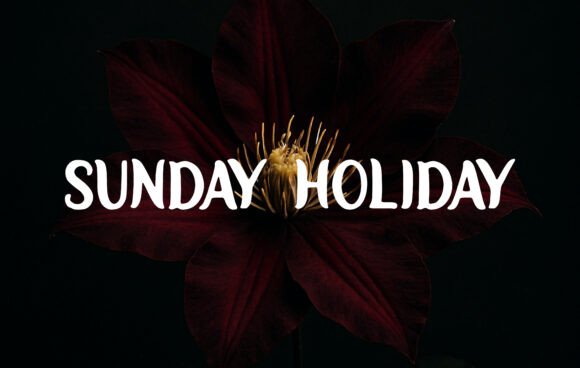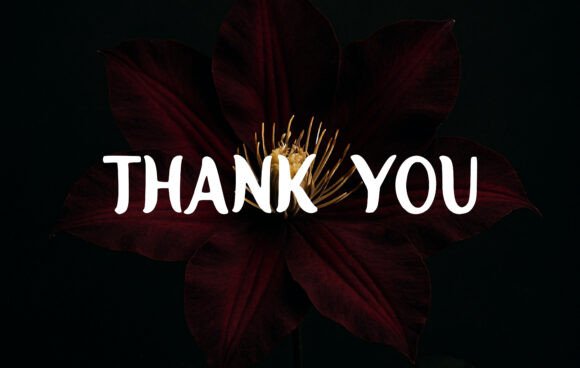
Golf Font: Elevate Your Designs with a Confident yet Approachable Style
Are you looking for a font that exudes confidence and approachability? Look no further than the Golf Font. This clean, rounded display font is perfect for headlines, branding, and sports-themed designs. With its unique blend of strength and readability, Golf Font is sure to make a maximum impact on your audience.
What is Golf Font?
Golf Font is a modern display font that is designed to convey a sense of confidence and approachability. Its clean lines and rounded edges give it a friendly and approachable feel, making it perfect for designs that require a strong yet gentle touch. The font is highly versatile and can be used for a wide range of applications, from headlines and branding to sports-themed designs and more.
Key Features of Golf Font
- Clean and Rounded Design: Golf Font features a clean and rounded design that gives it a unique and distinctive look. The font’s smooth lines and curves make it easy to read and understand, even at large sizes.
- Confident yet Approachable Style: Golf Font combines strength with approachability, making it perfect for designs that require a confident yet gentle touch.
- Highly Versatile: Golf Font is highly versatile and can be used for a wide range of applications, from headlines and branding to sports-themed designs and more.
- Excellent Readability: Golf Font is designed to be highly readable, even at small sizes. This makes it perfect for designs that require a lot of text, such as brochures, flyers, and more.
Uses of Golf Font
Golf Font is a highly versatile font that can be used for a wide range of applications. Here are some of the most popular uses of Golf Font:
- Headlines and Titles: Golf Font is perfect for headlines and titles that require a strong yet approachable style.
- Branding and Logo Design: Golf Font can be used to create unique and memorable logos and branding materials.
- Sports-Themed Designs: Golf Font is perfect for sports-themed designs, such as jerseys, posters, and more.
- Advertising and Marketing Materials: Golf Font can be used to create eye-catching advertising and marketing materials, such as brochures, flyers, and more.
Benefits of Using Golf Font
There are many benefits to using Golf Font in your designs. Here are some of the most significant advantages:
- Unique and Memorable: Golf Font is a unique and memorable font that can help your designs stand out from the crowd.
- Highly Readable: Golf Font is designed to be highly readable, even at small sizes.
- Versatile: Golf Font can be used for a wide range of applications, from headlines and branding to sports-themed designs and more.
In conclusion, Golf Font is a clean, rounded display font with a confident yet approachable style. Perfect for headlines, branding, and sports-themed designs, it combines strength with readability for maximum impact. With its unique blend of style and versatility, Golf Font is sure to become a favorite among designers and crafters.